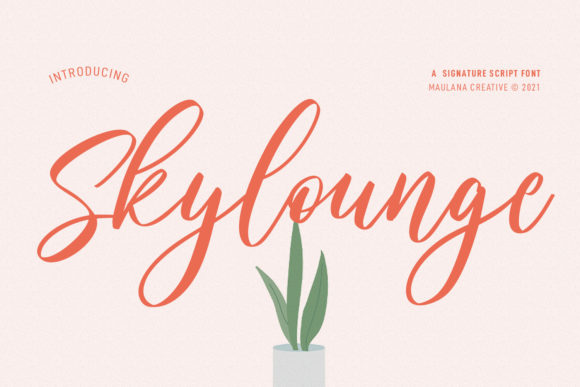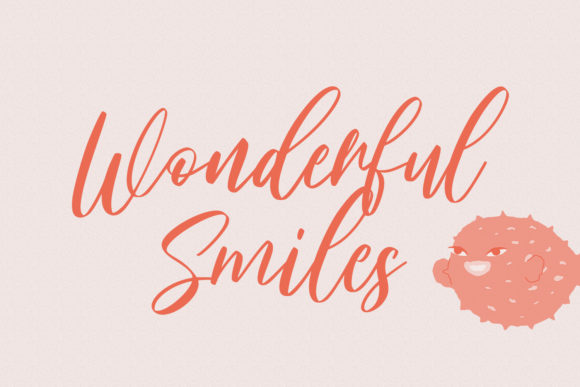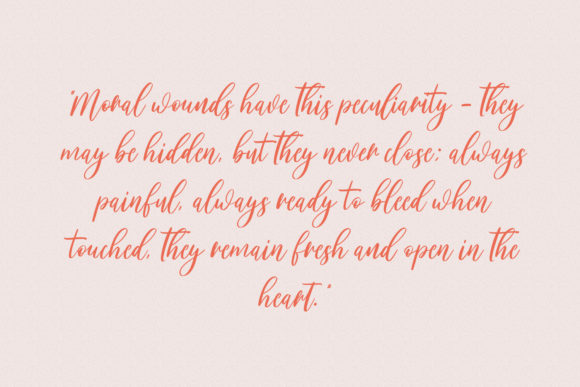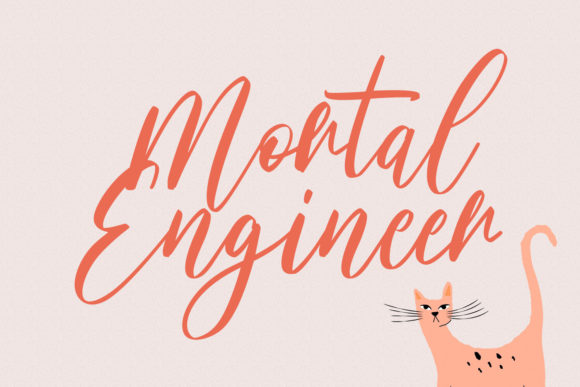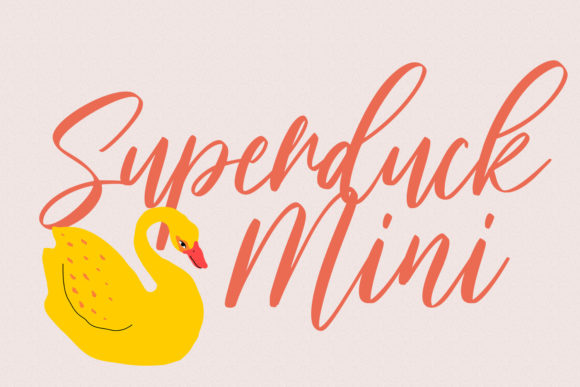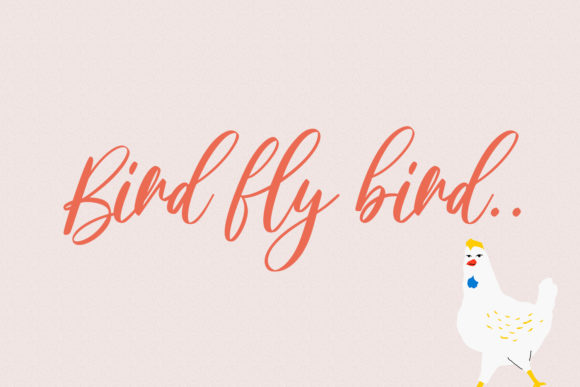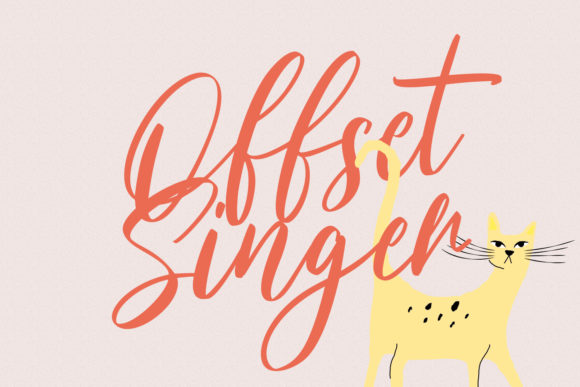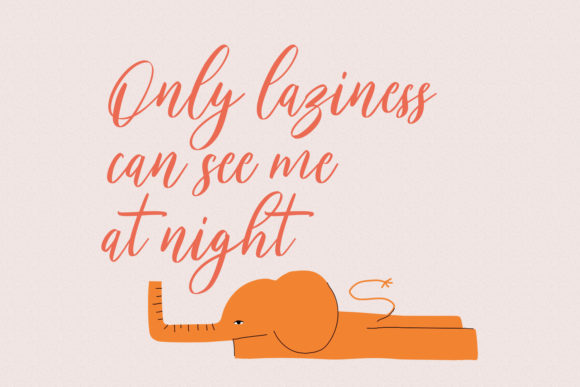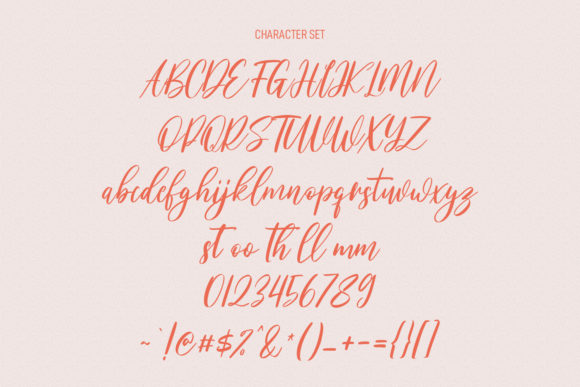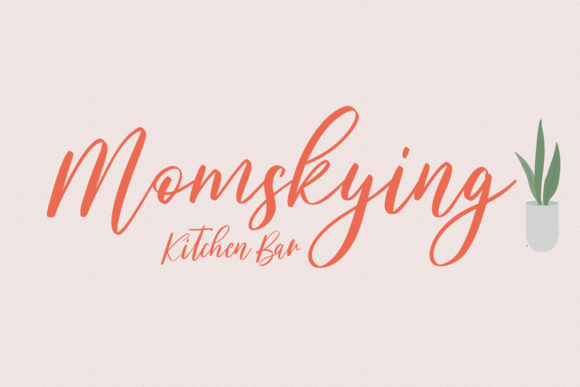
Skylounge Signature Script Font
About Skylounge Signature Script Font
Skylounge Signature Script is an enchanting handwritten font. This versatile script font has a wide spectrum of applications ranging from greeting cards to headlines and is guaranteed to add a romantic feel to your next project.